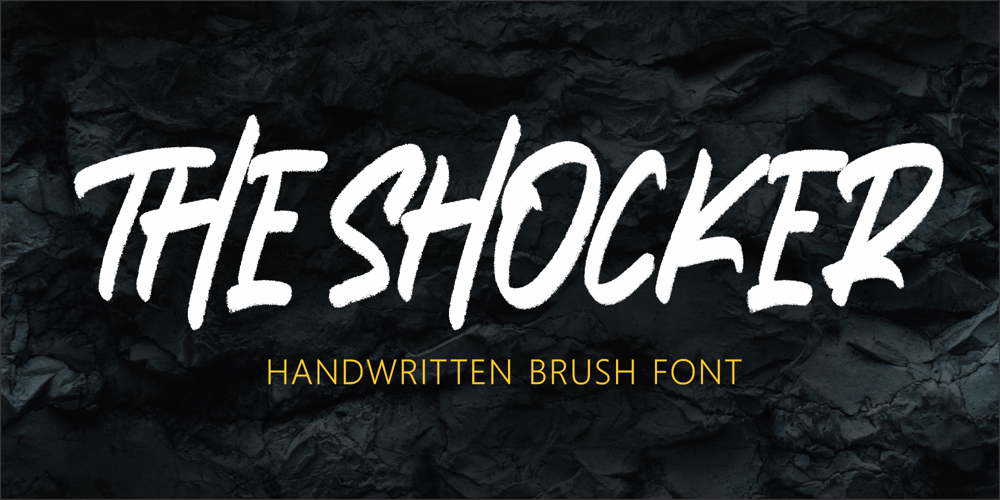
The Socker
The Socker font
The Socker Font Family was designed by SU KASIH and published by Mozatype. The Socker contains 1 styles and family package options. THE SHOCKER a natural brush font. THE SHOCKER would be perfect for sports, music festivals, quotes, special events, or anything.What’s Included :- Works on PC & Mac- Easy to use ( Installations )- Compatibility Windows, Apple, Linux, Cricut, Silhouette, and Other cutting machinesThank you for purchasing this font. Please appreciate, if you like this.ENJOY it 🙂